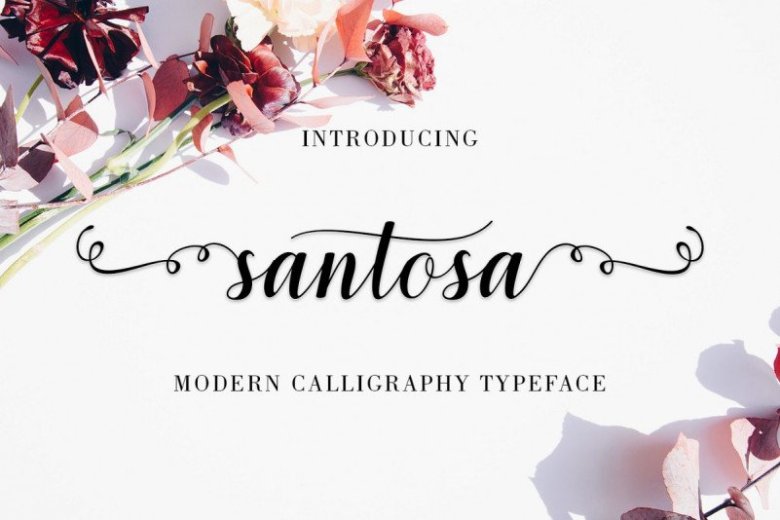
Santosa Calligraphy Font
This font presents a feminine calligraphy style that offers a beautiful accent to any design. This type of font is currently extremely popular in the logo design community.
Introducing Santosa. It’s modern calligraphy script font, every single letters has been carefully crafted to make your text looks beautiful.
With modern script style this font will perfect for many different project, example: invitations, greeting cards, posters, name card, quotes, blog header, branding, logo, fashion, apparel, letter, stationery and more!